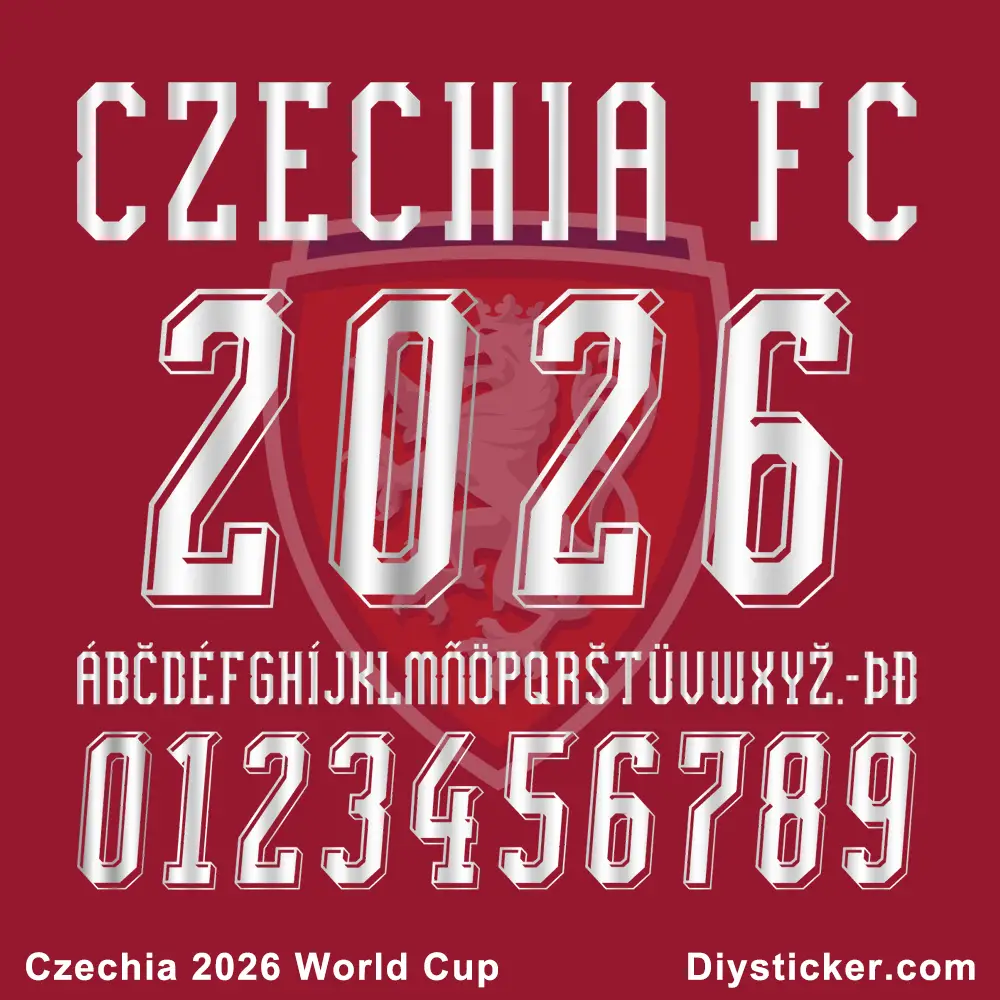
Bring the spirit of Czech football to your designs with the official Czechia 2026 World Cup Font. This is the authentic typeface that will be featured on the Czech national team’s jerseys for the 2026 FIFA World Cup, used for player names, numbers, and official tournament graphics.